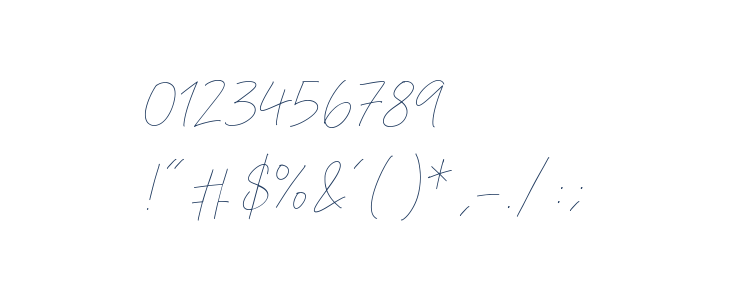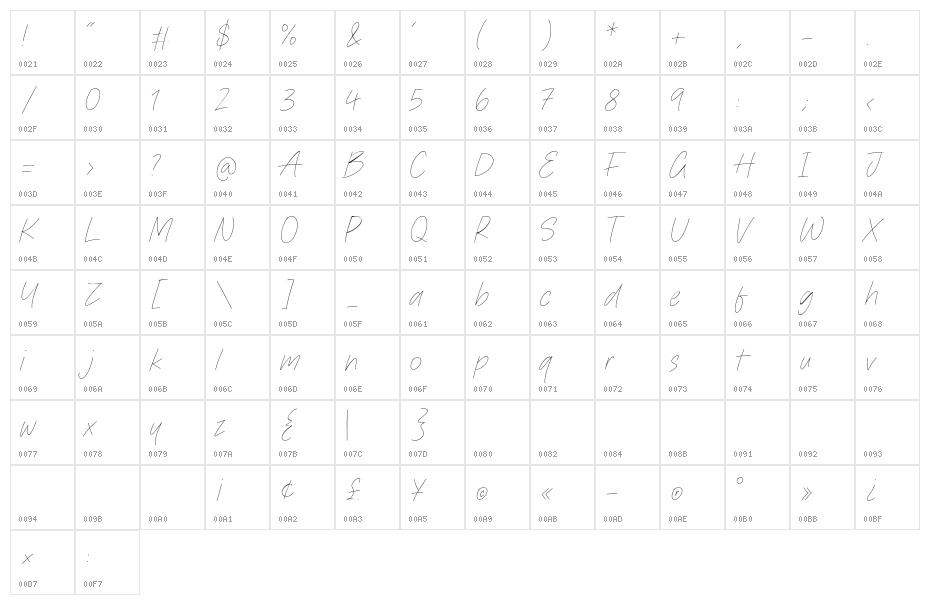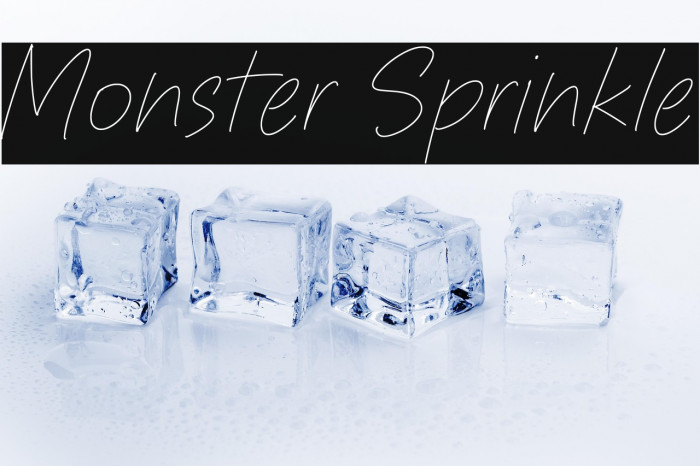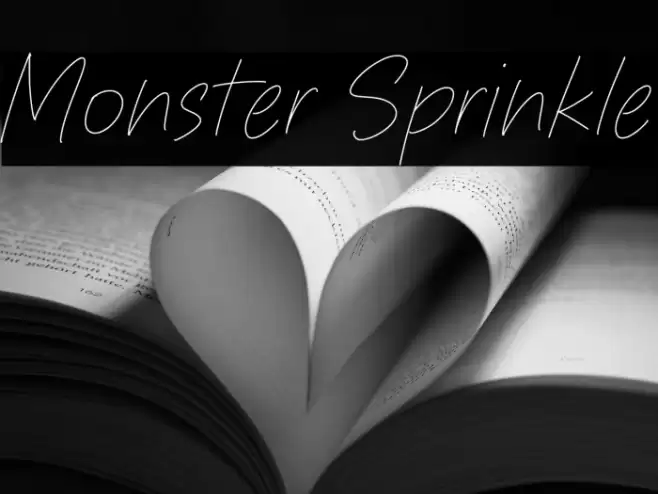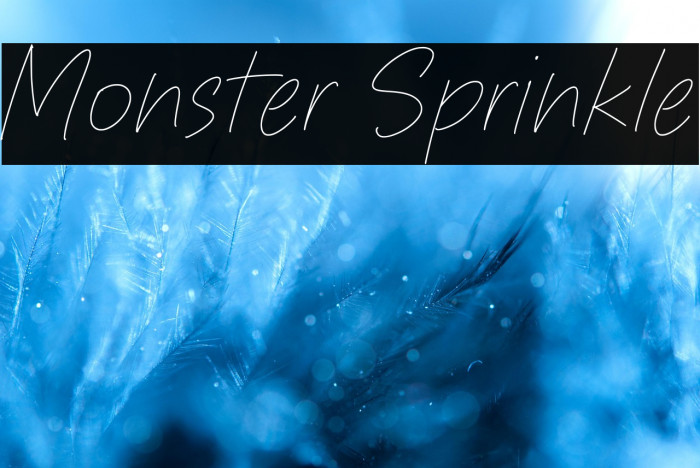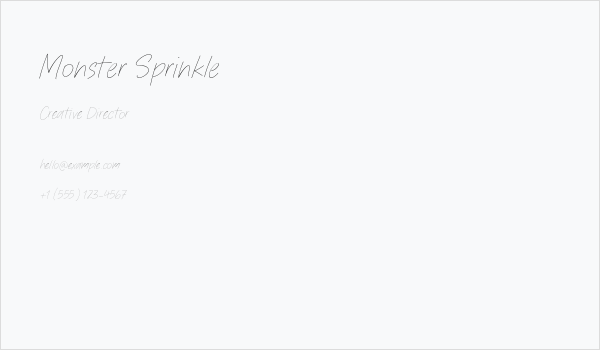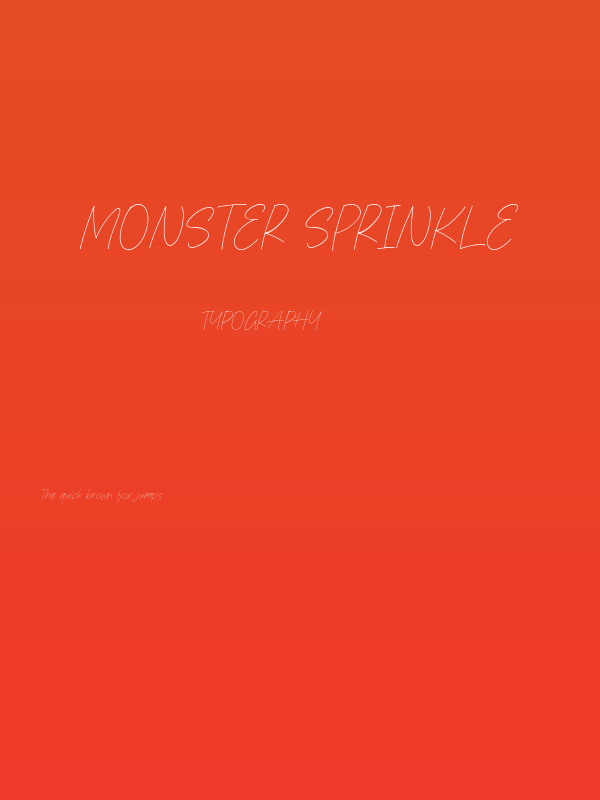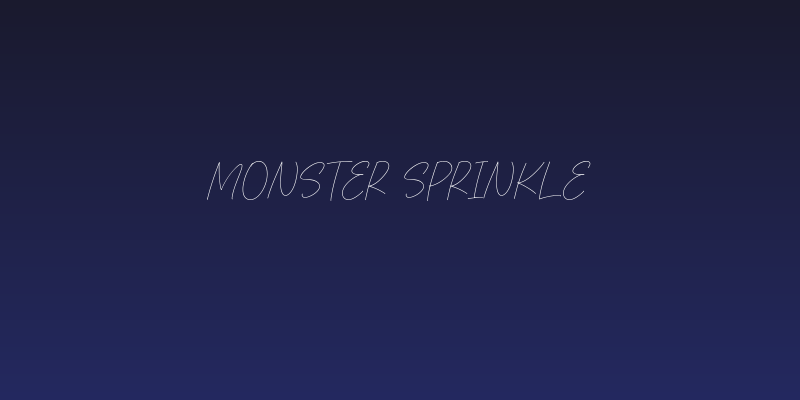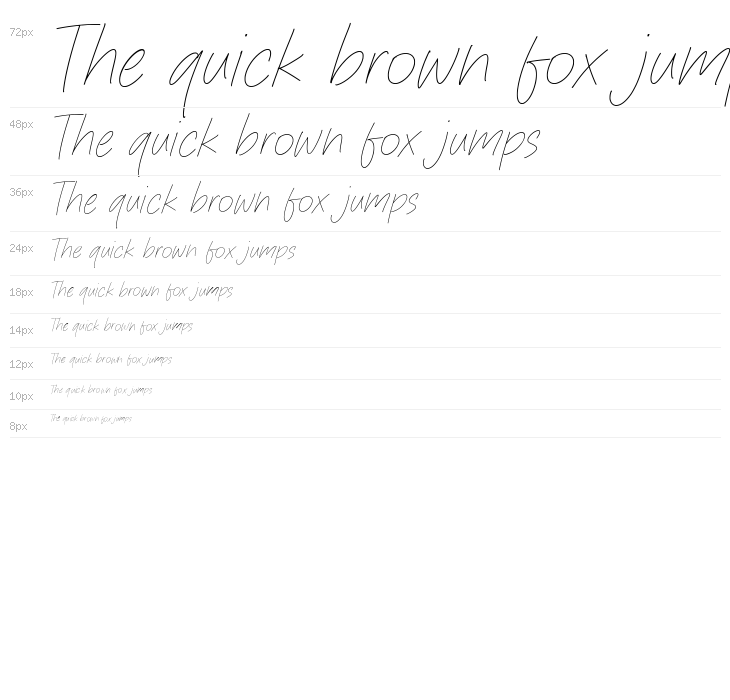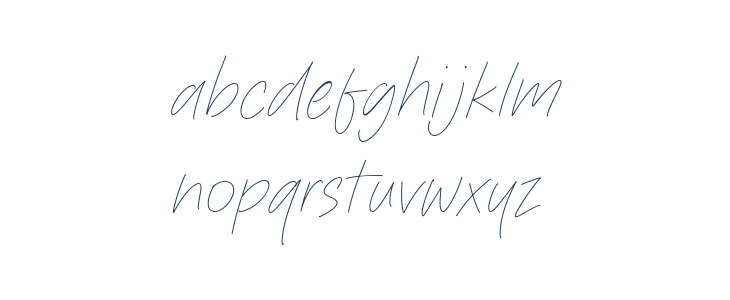
Monster Sprinkle Font
Monster Sprinkle Description
This font features a playful, handwritten style with a casual and flowing appearance. The letters are thin and elongated, giving it a light and airy feel. Each character is uniquely crafted, maintaining a consistent slant that adds to its informal charm. The uppercase letters are slightly larger than the lowercase, maintaining a harmonious balance. Numbers and special characters follow the same whimsical style, ensuring uniformity across all elements. The overall design is clean and legible, making it suitable for creative projects that require a personal touch.
| Use Case | Headlines, Creative projects, Personal notes |
| Proposed Projects | Ideal for greeting cards, personal invitations, creative branding, and social media graphics. |